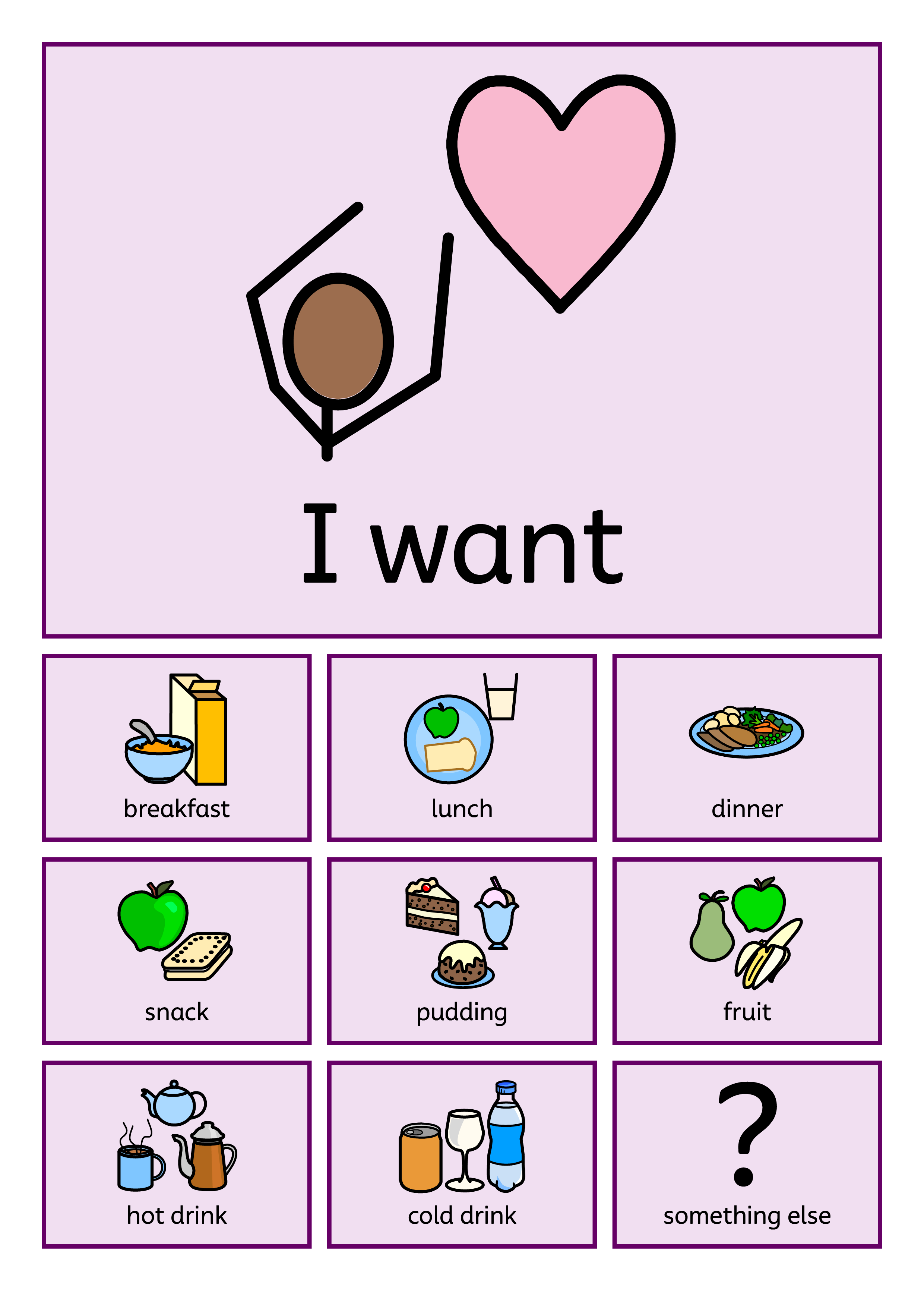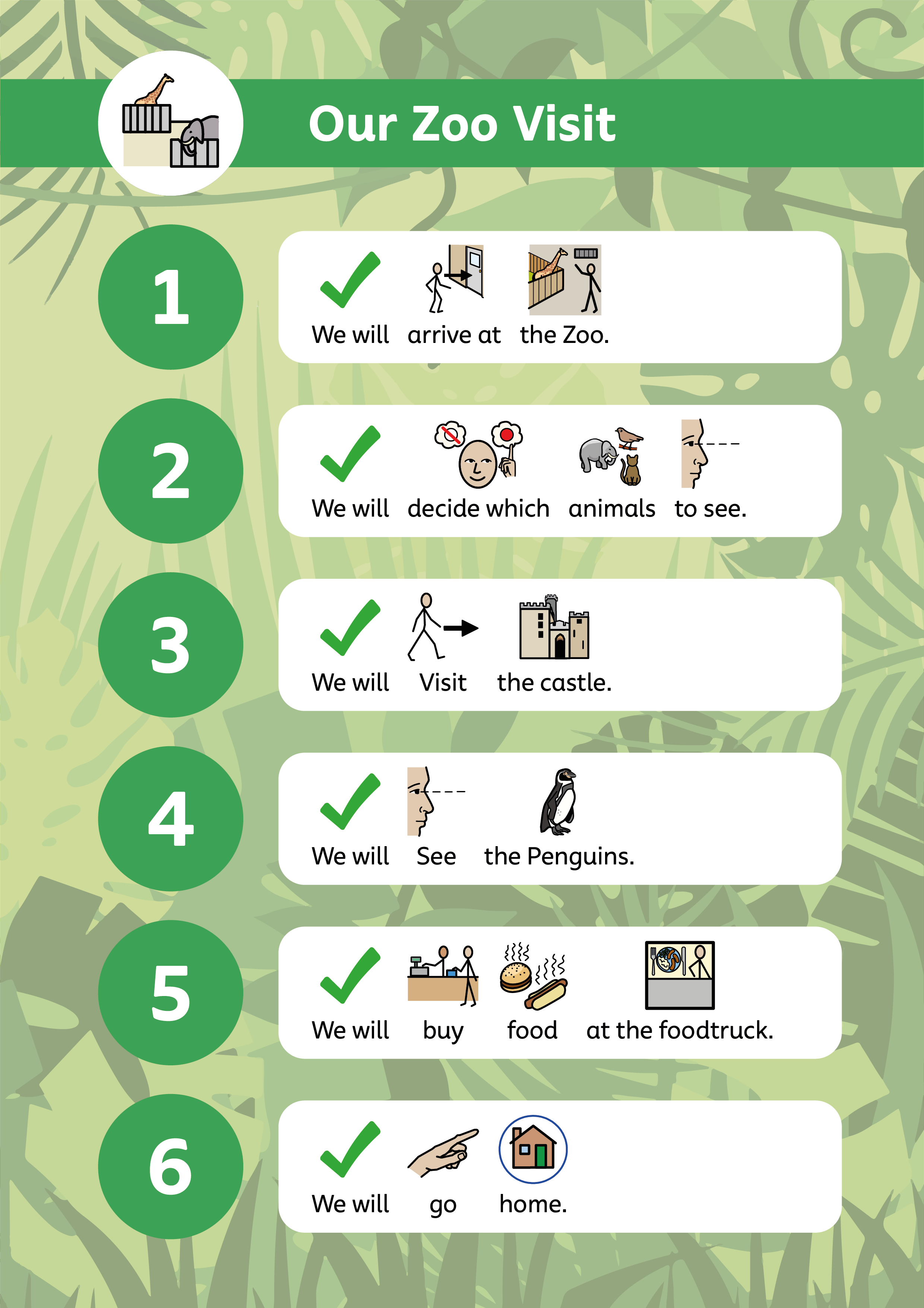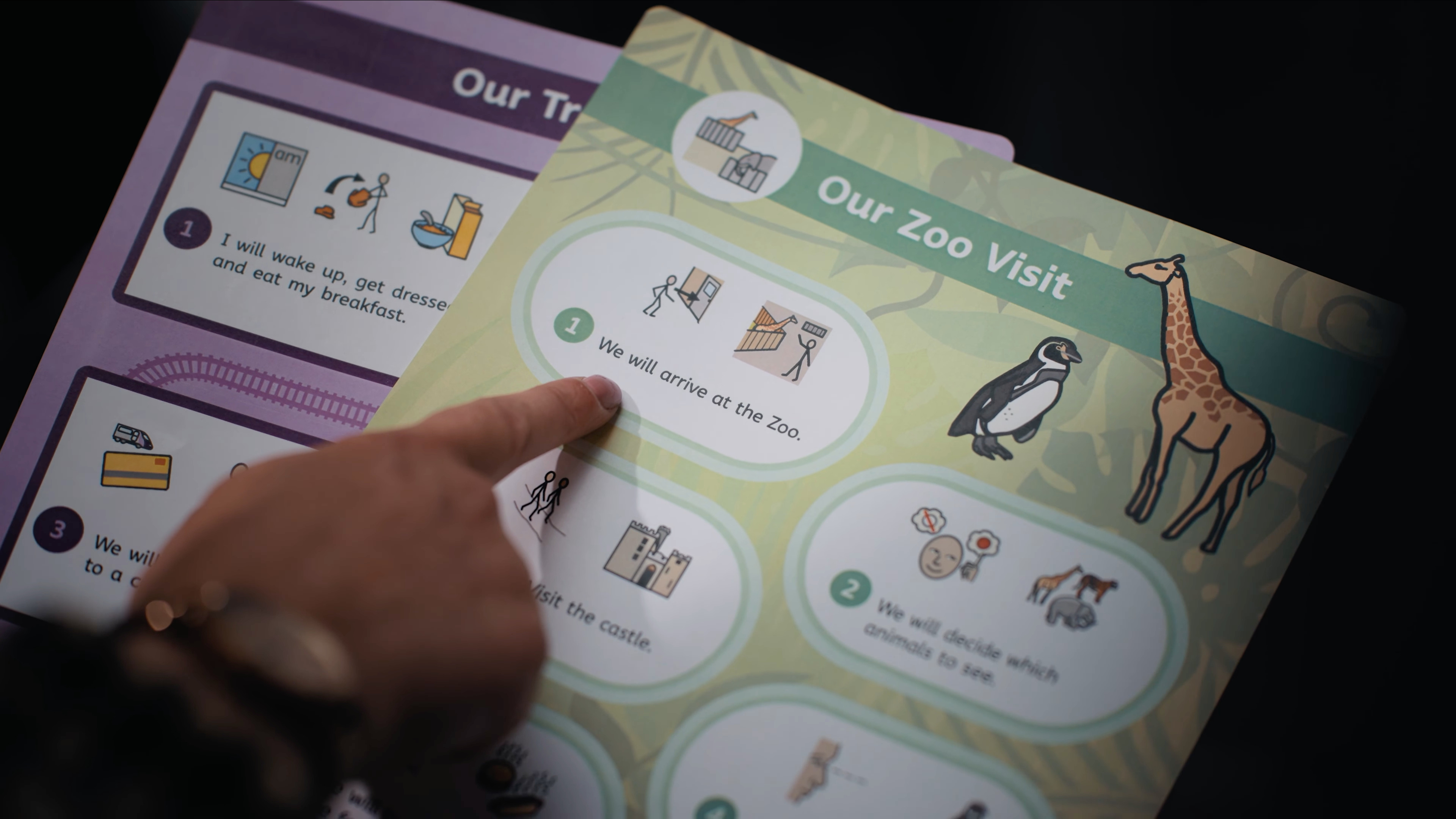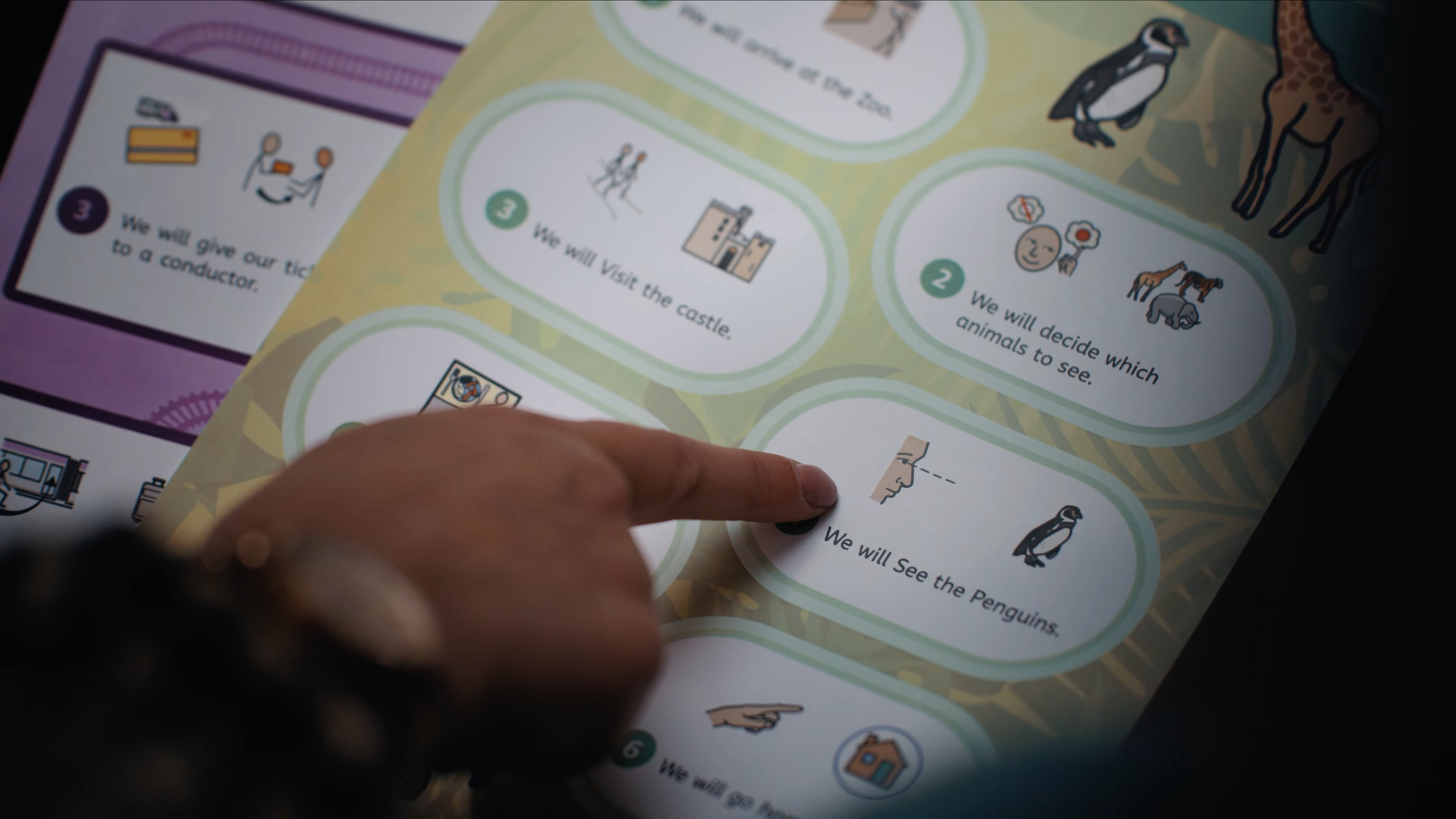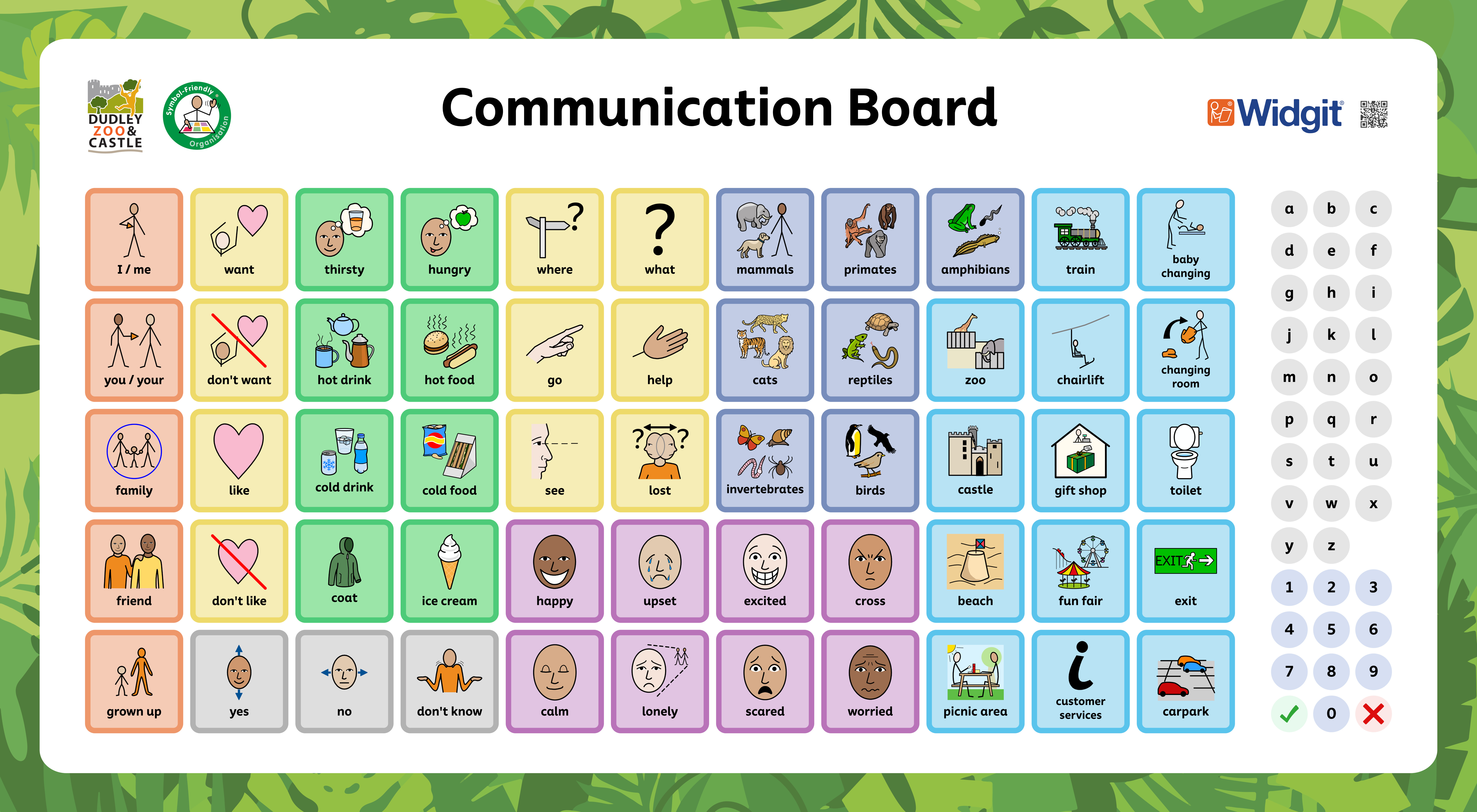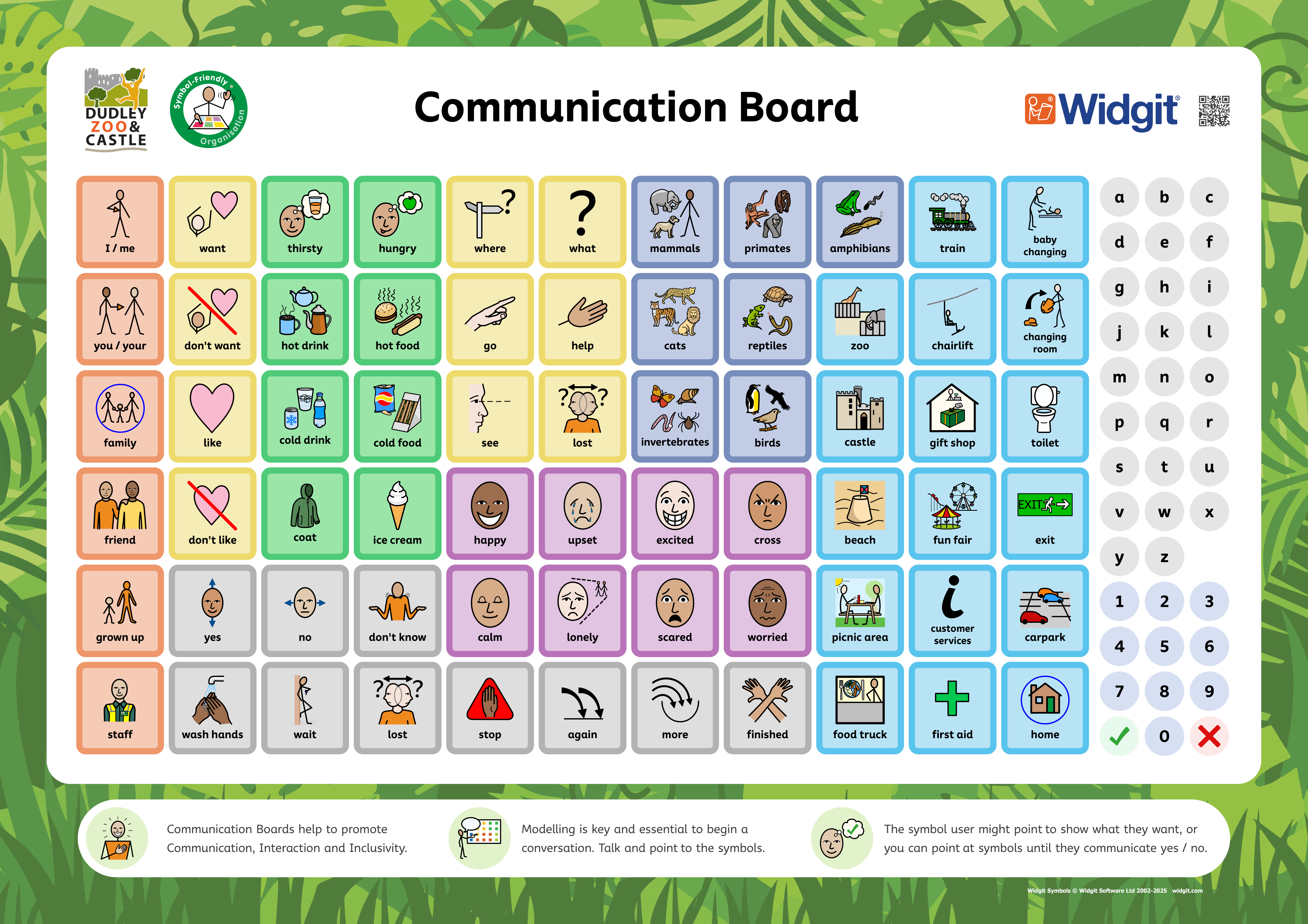
BeClear
A Custom Font Family for Widgit
BeClear
A Custom Font Family for Widgit
Widgit’s library of over 100,000 symbols supports communication, learning, and inclusion. We designed BeClear specifically for use alongside them, with a full weight range, dark mode axis, and true Italic to support a distinctive and accessible brand identity.